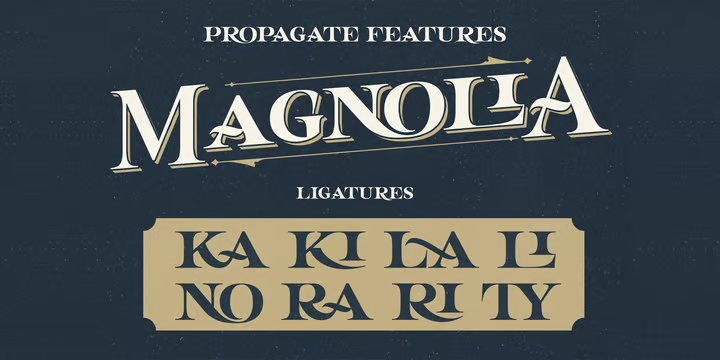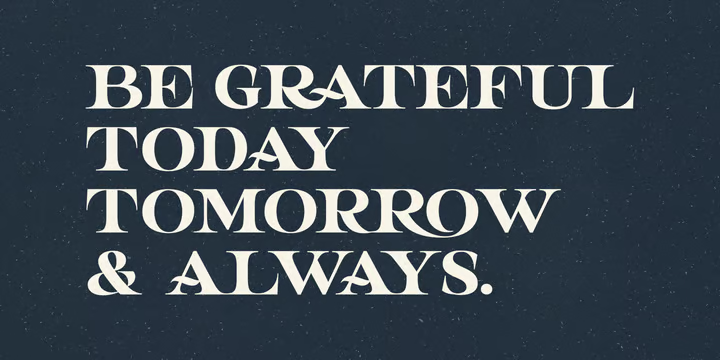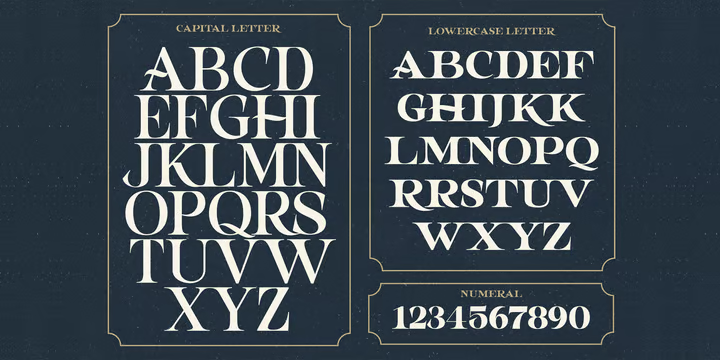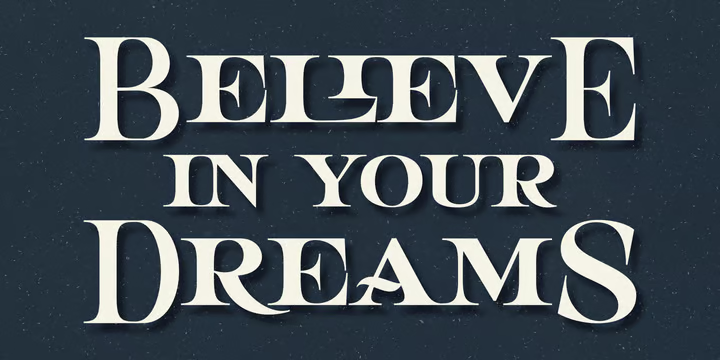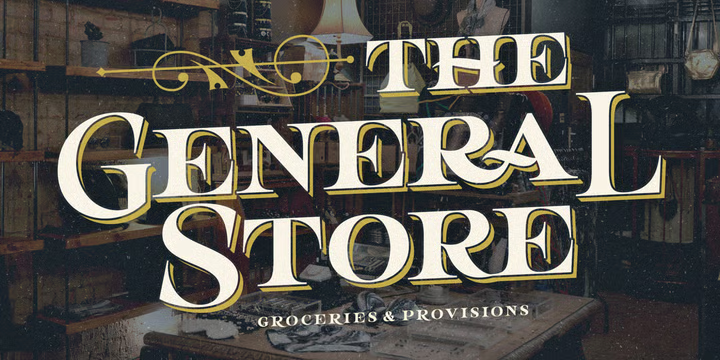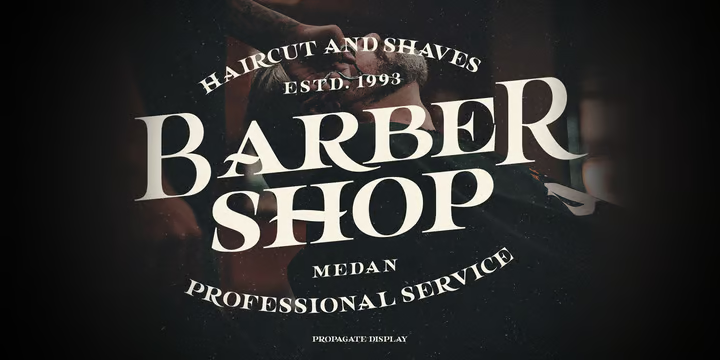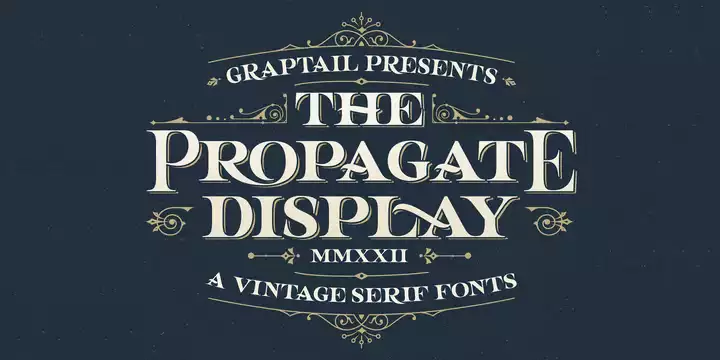
Propagate Font
Propagate is a font display is made by hand, inspired by classic posters. Propagate comes with uppercase, lowercase, numerals, punctuations and so many variations on each characters include opentype alternates, common ligatures and also additional swash to let you customise your designs. Perfect to use for Logotype, Letterhead, Poster, Apparel Design, Label and etc.
Propagate Font is a Display Fonts font that brings a professional and versatile look to your projects. Propagate is a font display is made by hand, inspired by classic posters.